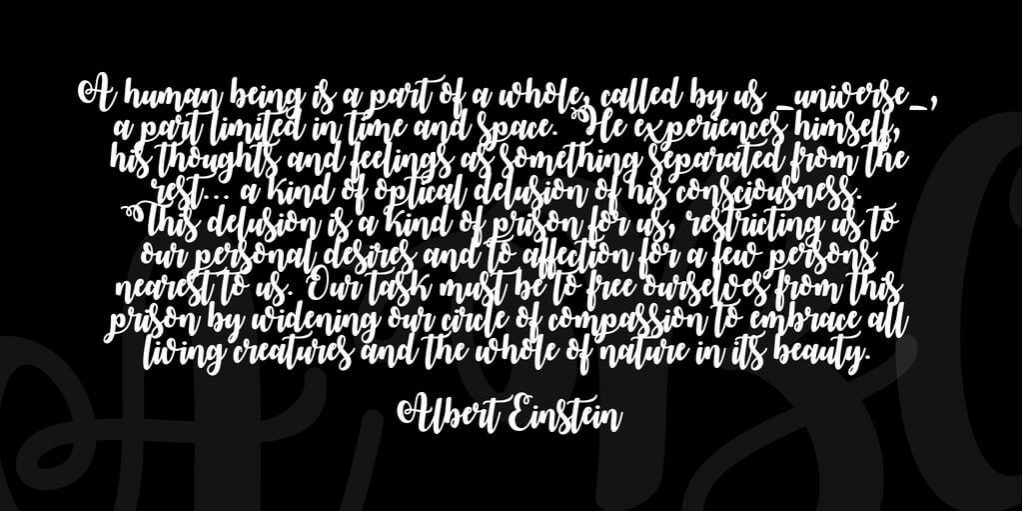
The October Twilight Font is a popular font family often utilized in the printing industry. This Font resembles dancing script and was designed and released for the first time on April 20, 2019.
This effective font household comprises a wise association of letters and numbers. Highlighting the first-class readability within the brief textual content and long text paragraph as good.